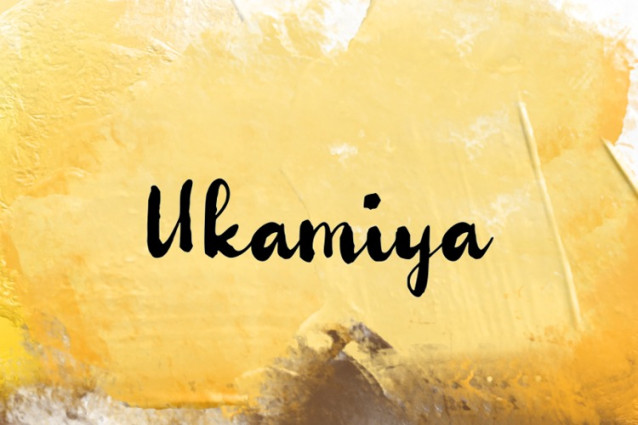
Ukamiya Font
Ukamiya Font, it would be a perfect choice to design posters, affiches, logos, t-shirt and magazine prints, eye-pleasing typographic designs and more.